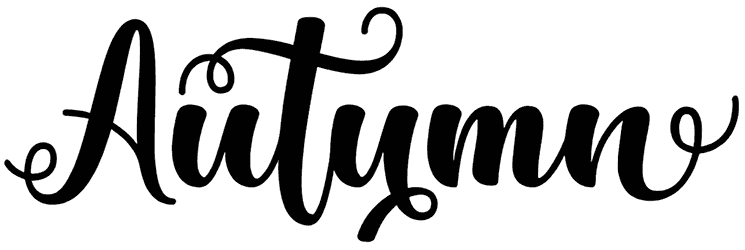
Autumn Font
Without any doubt, Autumn is an incredible script font that seems memorable to the viewers. This calligraphy font has a spectacular style and can be practical in several situations. For instance, you may use it on book covers, flyers, and brochures.
This autumn font’s letters have an elegant form with curly tails catching your attention at first glance. Moreover, their smooth edges and curvy shape create a pleasant feeling, so give it a try now.